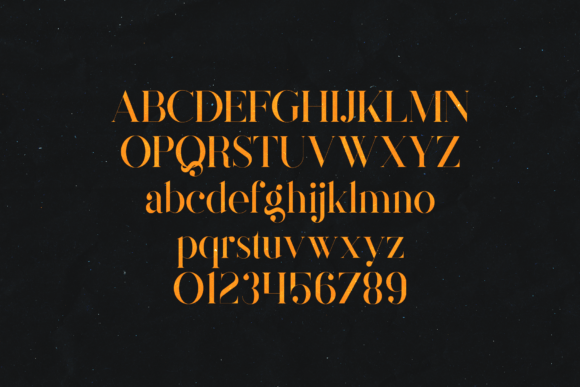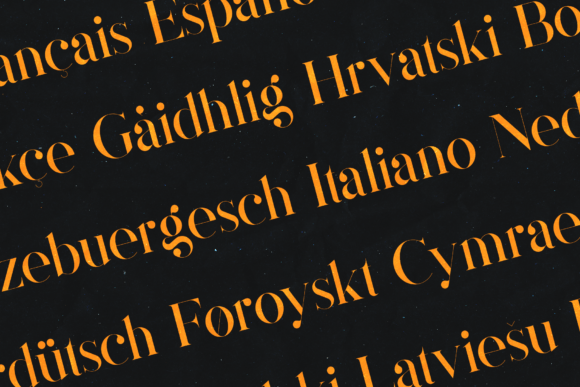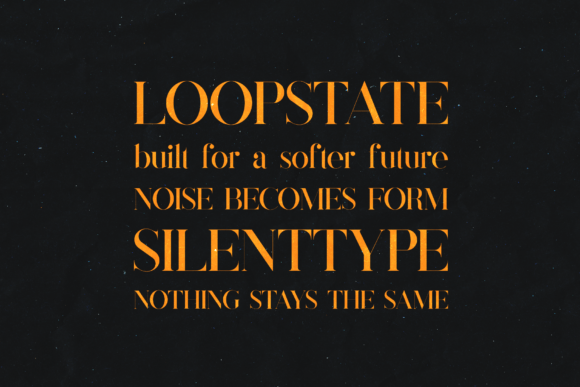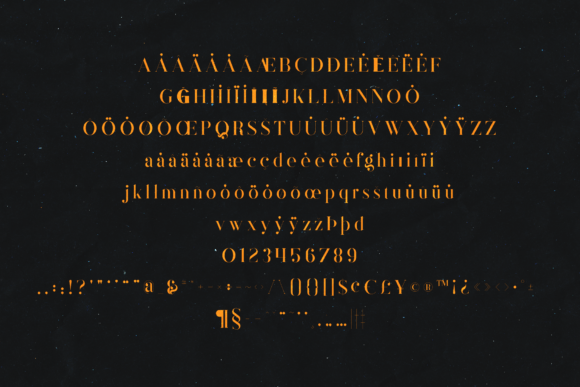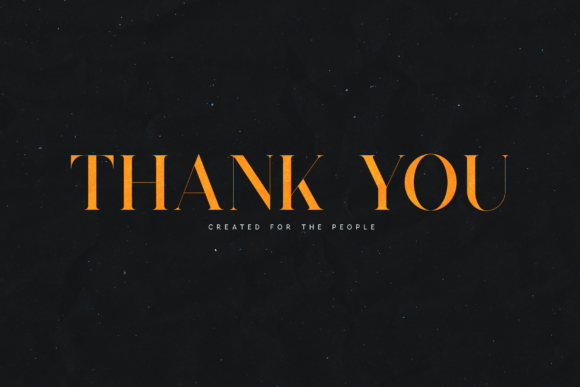
Introduction to Magoa Font
As designers, we’ve all been there – staring at a blank canvas, trying to bring a creative project to life. It’s the moment when a typeface can make or break the entire design. For those seeking a touch of sophistication, the Magoa Font is an elegant solution. This refined modern serif typeface is designed to elevate any project, from high-end branding to luxury packaging.
What sets Magoa apart is its versatility and premium feel, making it perfect for editorial projects that demand a high level of quality. Whether you’re working on a magazine, creating social media graphics, or designing a logo, Magoa Font is an invaluable resource for designers who want to deliver exceptional results.
Key Features of Magoa Font
- High-quality design for creative projects: Magoa Font is designed to provide a unique and stylish look for various creative projects, including graphic design, digital art, and web design.
- Unique characteristics: Magoa Font features a unique blend of modern and traditional design elements, making it stand out from other fonts in its class.
Honest Review: Magoa Font
I recently stumbled upon the Magoa Font while working on a creative project and I’m excited to share my thoughts on this free design resource. As a designer, I appreciate high quality fonts that can elevate my work, and Magoa Font definitely delivers.
What works well about Magoa Font is its versatility. The font comes in a variety of styles, from bold and modern to elegant and sophisticated. This makes it an excellent choice for a wide range of design projects, from logos to digital products.
However, there are some limitations to consider. The font may not be as extensive as some other paid options, and the styles may not be as customizable as I would like.
Overall, I’m impressed with the Magoa Font and would recommend it to designers looking for a high quality, free design resource. While it may have some limitations, it’s a great addition to any designer’s toolkit.
The Magoa Font is a versatile design resource that can be used in a variety of creative projects, including logos, business cards, and marketing materials. Its high quality and unique style make it an excellent choice for designers looking to add a touch of elegance and sophistication to their work.